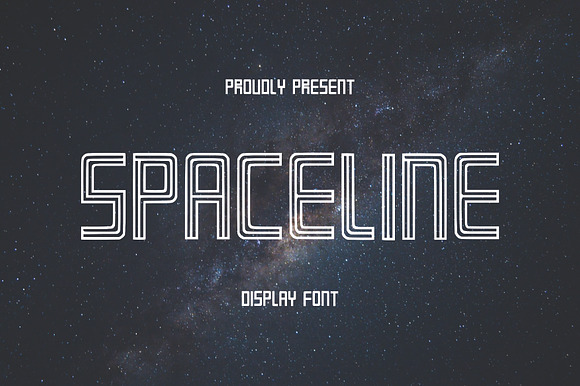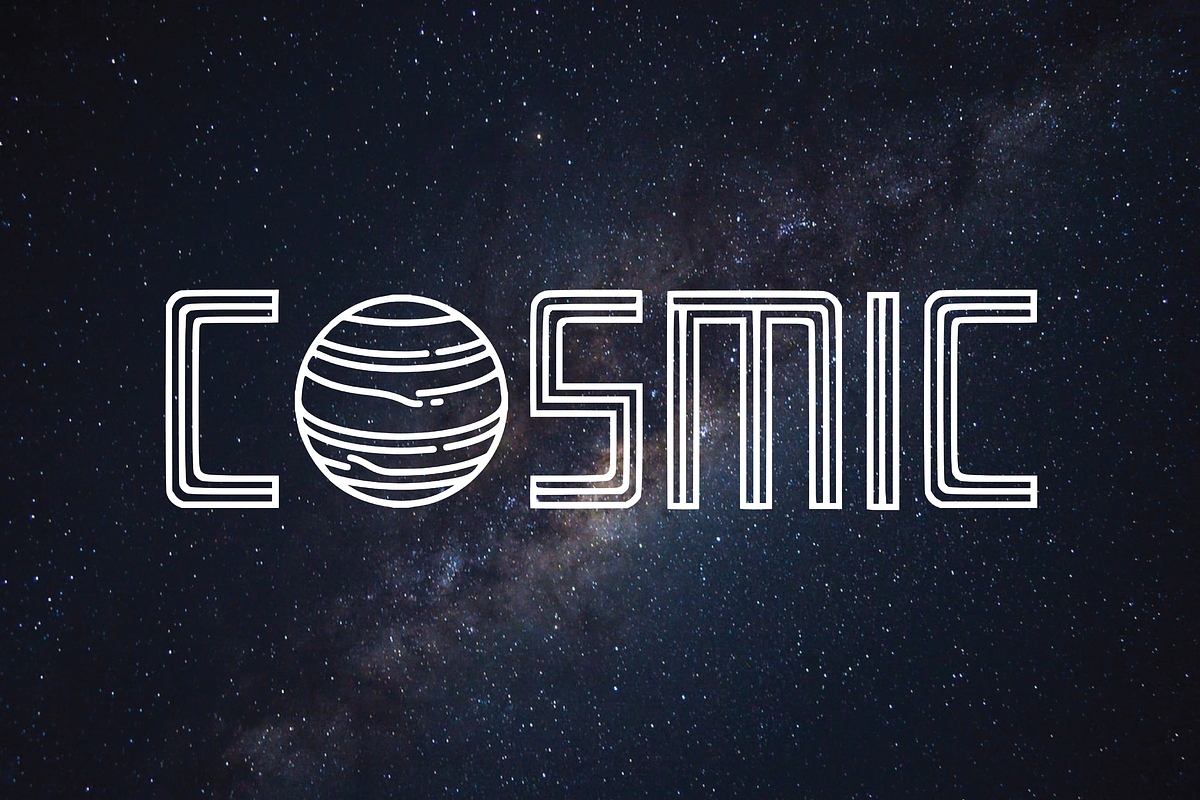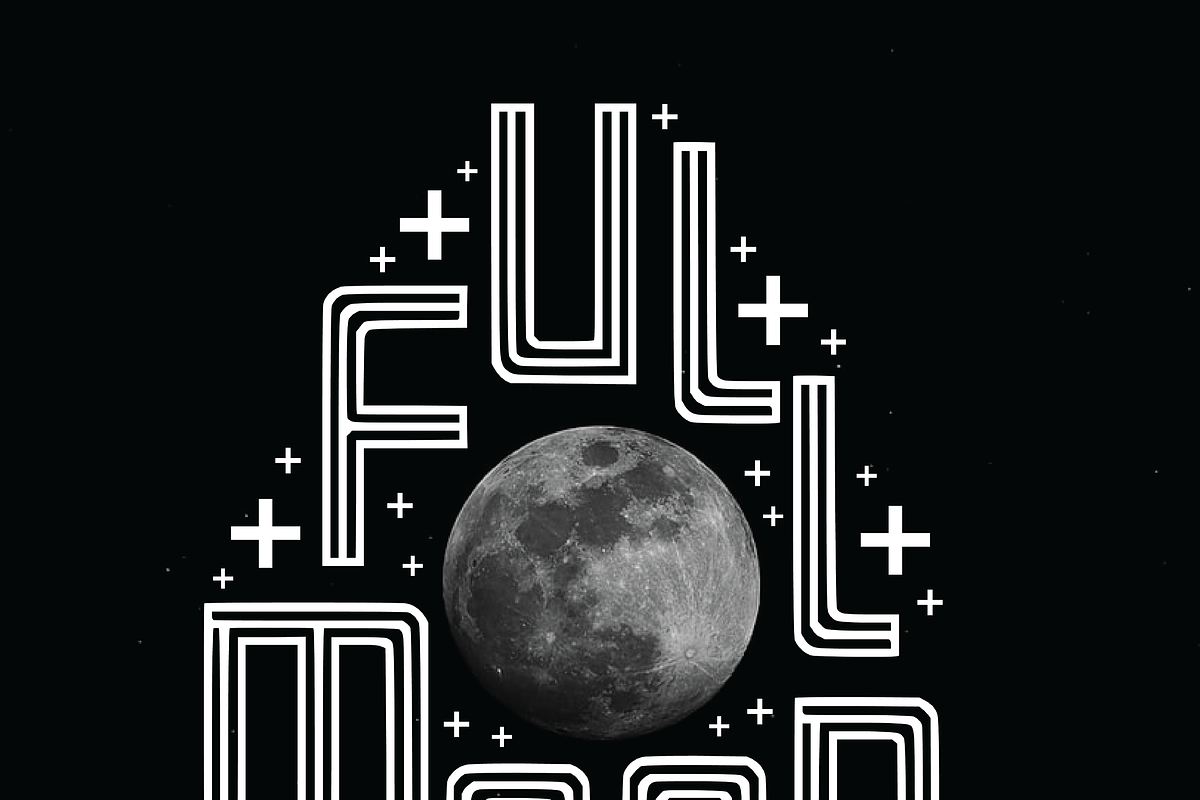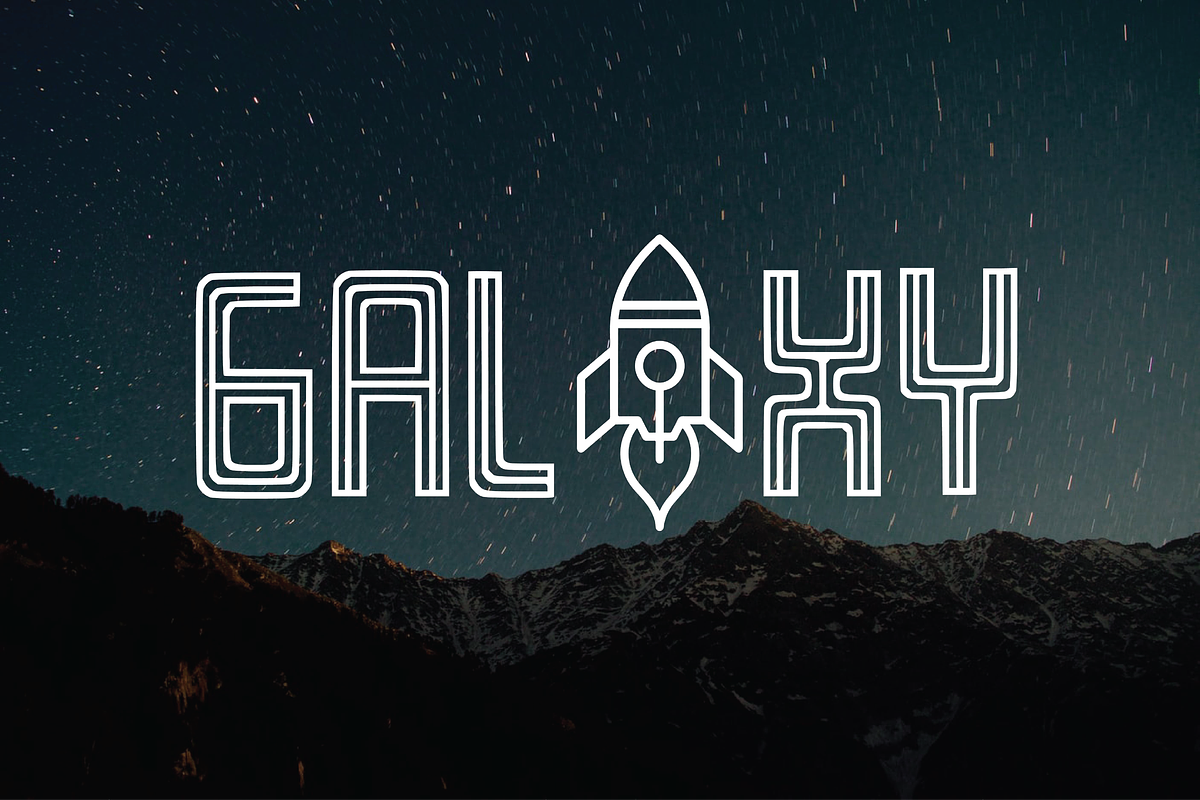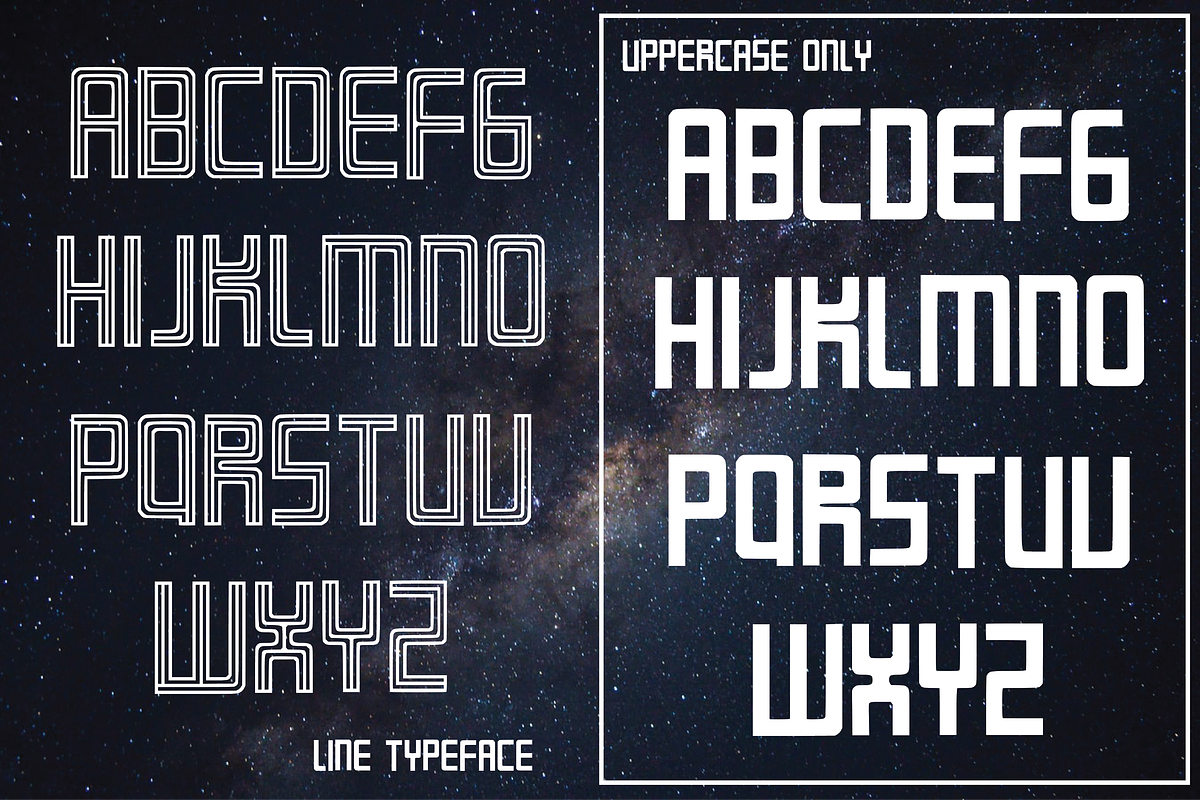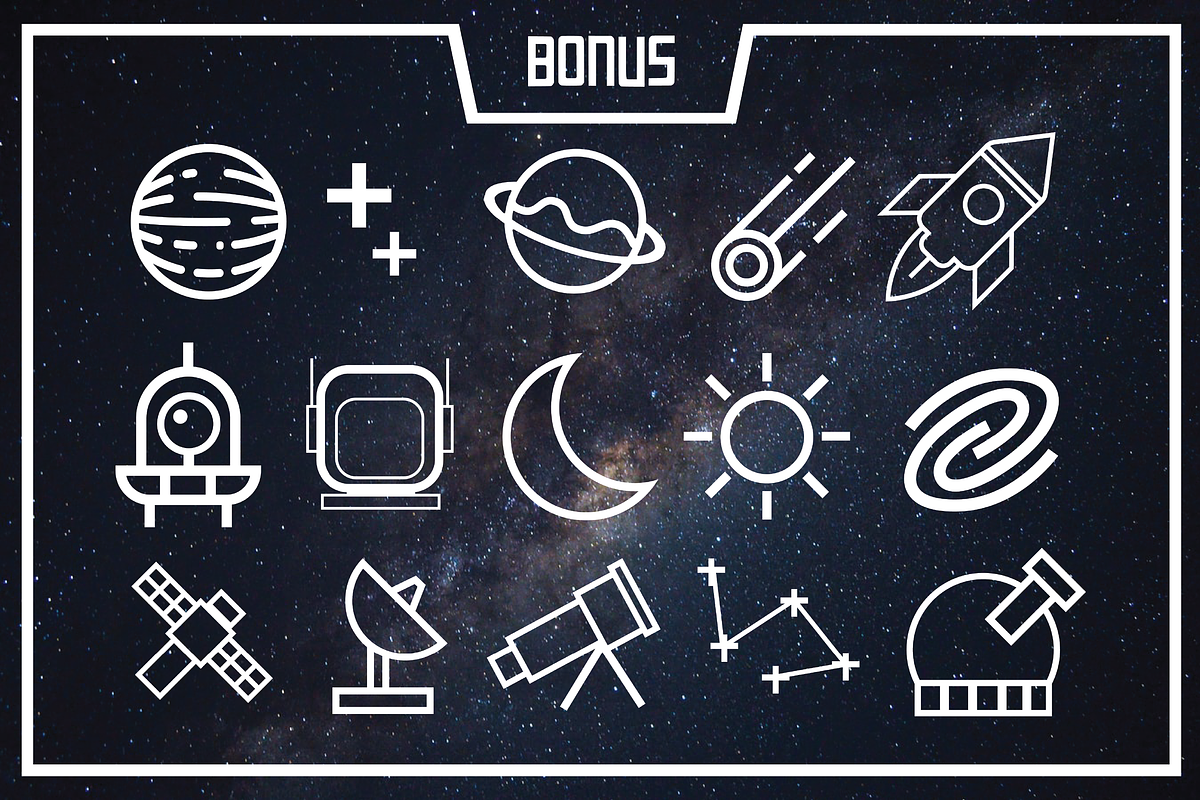
SPACELINE - Display Font
SPACELINE is a display font. So it is more suitable for making a poster design , promo materials, banners, t-shirts or a design that would like to display Sci-fi or futuristic look.
SPACELINE include BONUS and dont have lowercase, instead we make a solid block style to support the lined typeface.